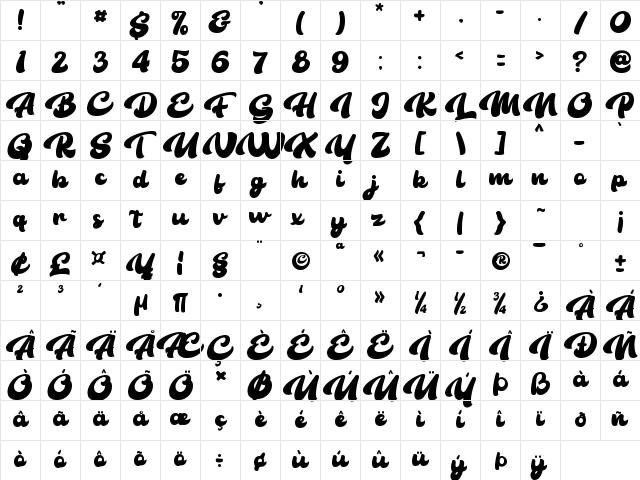
The Bambank Script Regular
| Designer | Toni Dzulham |
Design Context for The Bambank Script Typeface
The Bambank Script brings a calligraphic fluidity to the page — its connecting strokes and expressive curves give it an unmistakably human quality.
Font Pairing: Combine The Bambank Script with a simple geometric sans for maximum contrast — the tension between flowing curves and clean structure is a classic typographic pairing.
Pro Tip: Use The Bambank Script for short runs of text — names, titles, or taglines. Extended body copy in script faces tires the eye quickly.